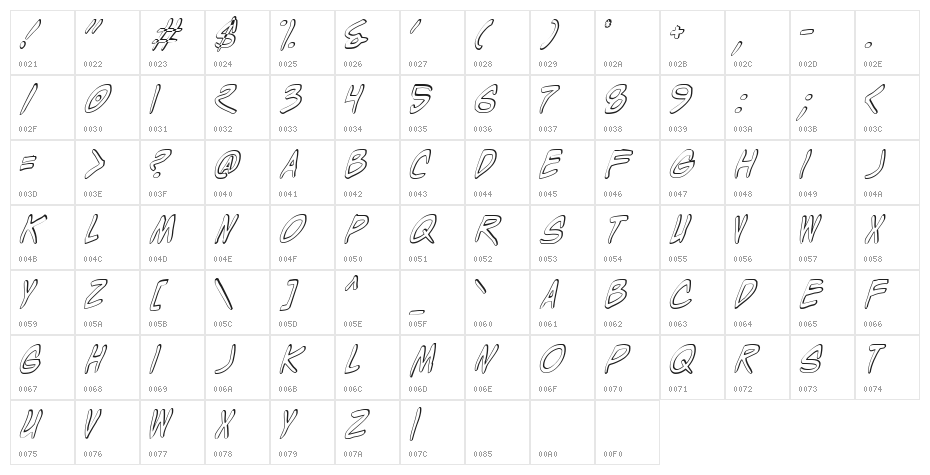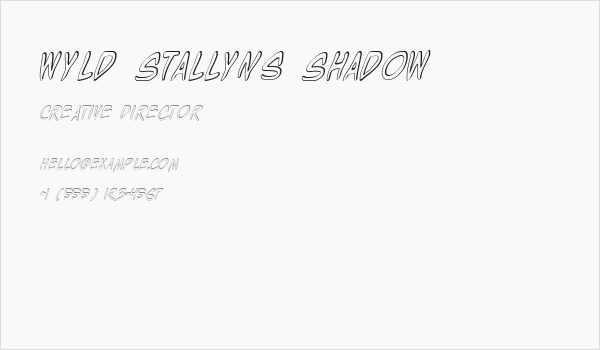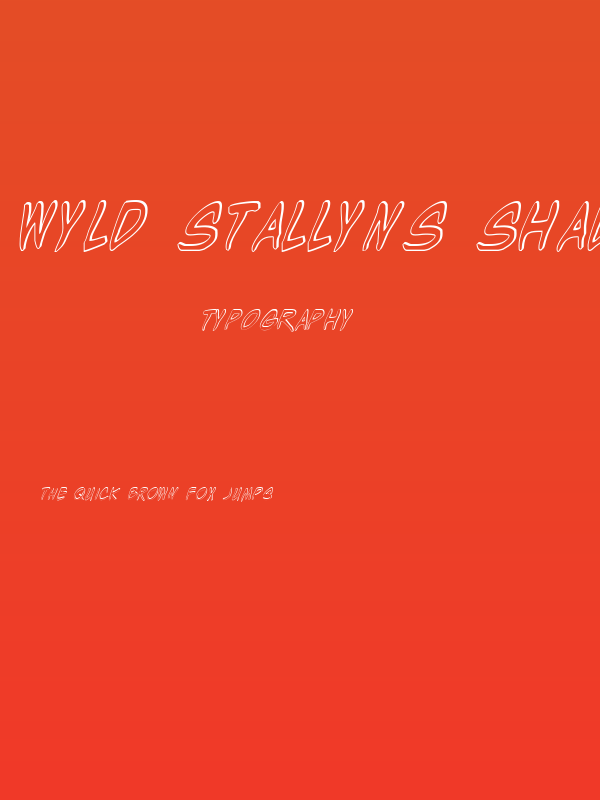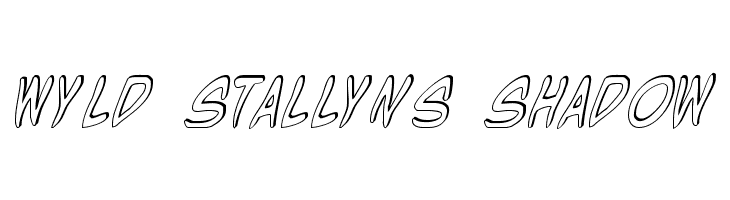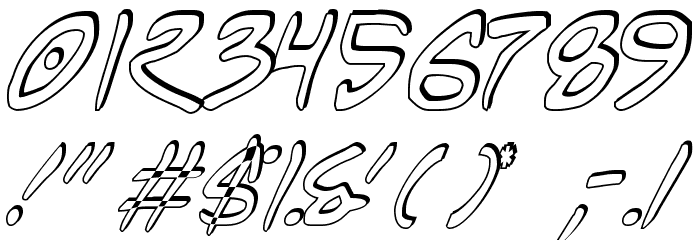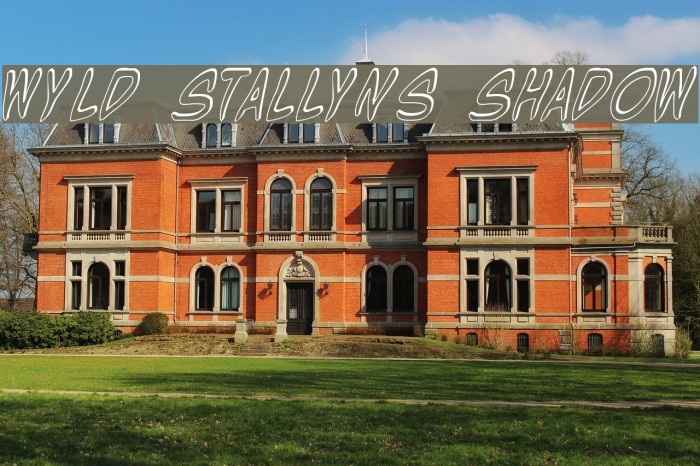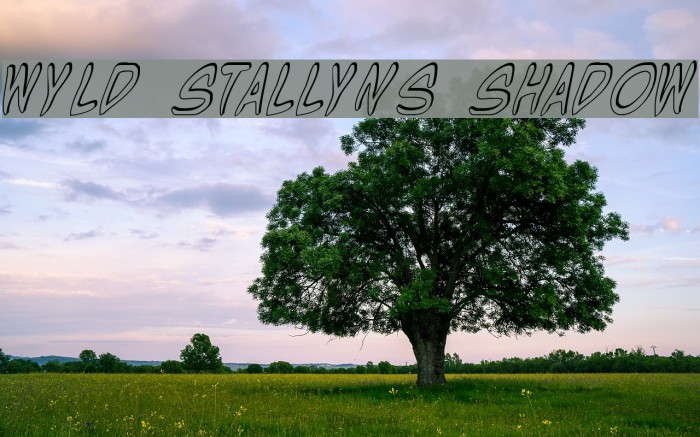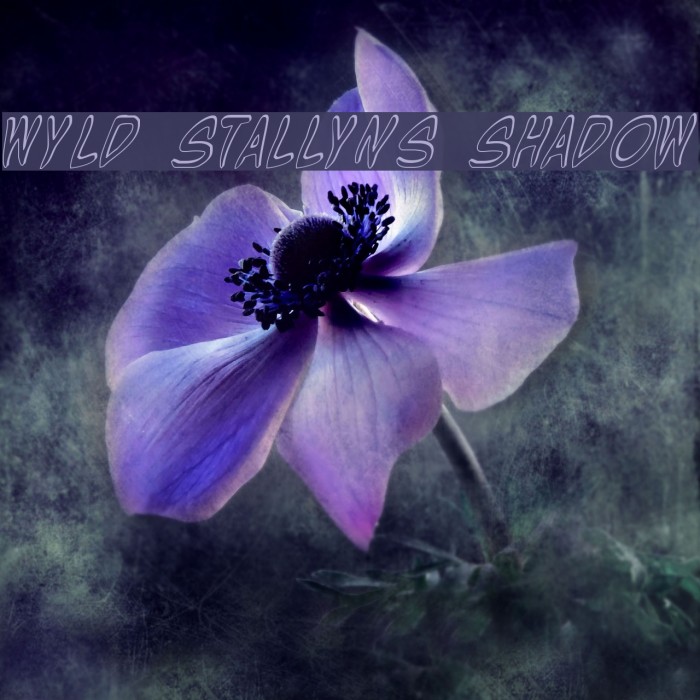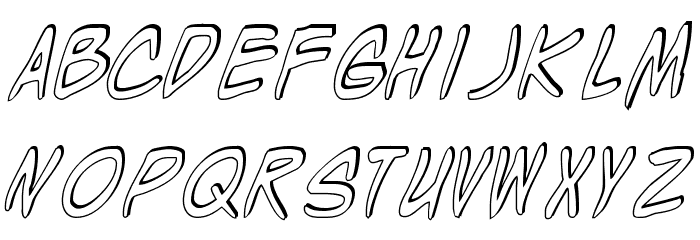
Wyld Stallyns Shadow Font
Wyld Stallyns Shadow Description
This font features a dynamic and playful design with a shadow effect that adds depth and dimension to each character. The letters are slightly slanted, giving a sense of movement and energy. The strokes are bold and rounded, with a consistent thickness that maintains readability while adding a touch of flair. The shadow effect is subtle yet effective, creating a three-dimensional look that makes the text stand out. This font is ideal for projects that require a fun and engaging aesthetic, such as posters, event flyers, or branding for creative industries.
| Proposed Projects | Ideal for posters, event flyers, and creative branding. |